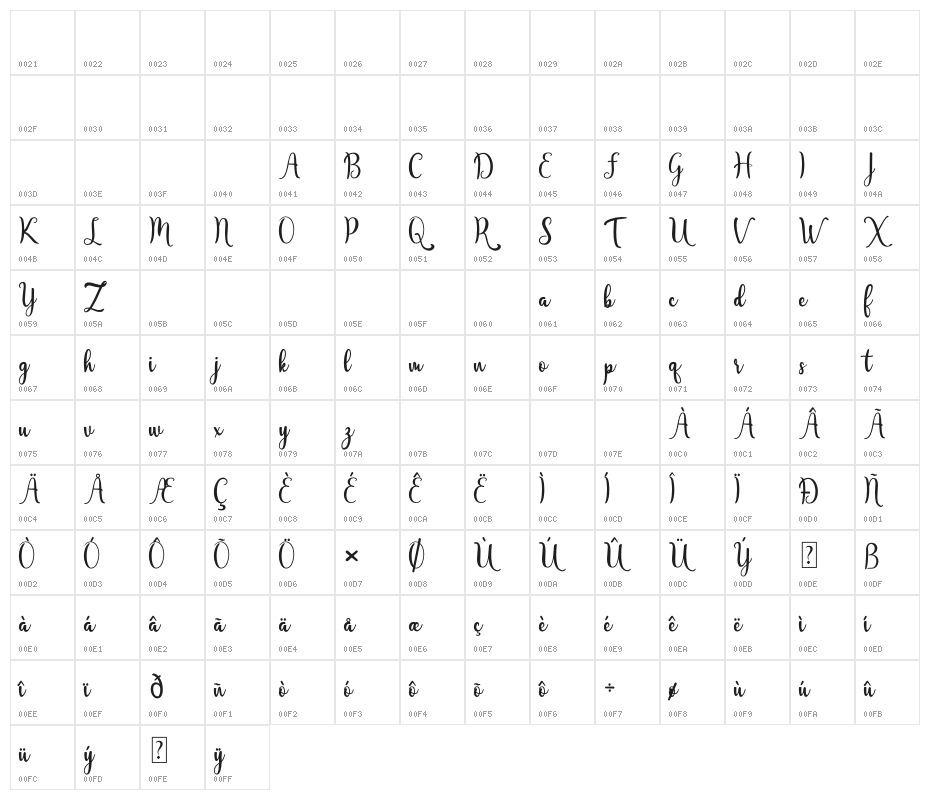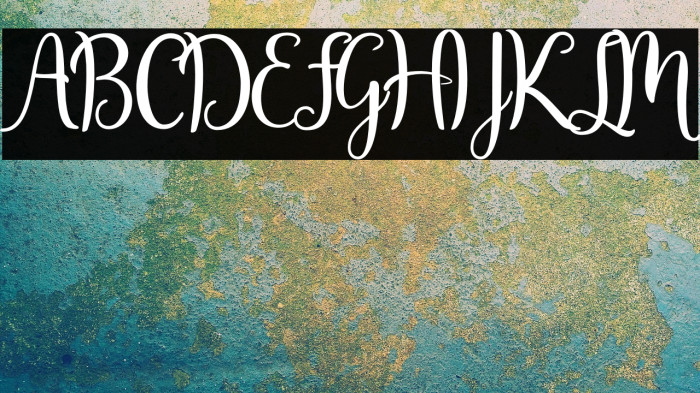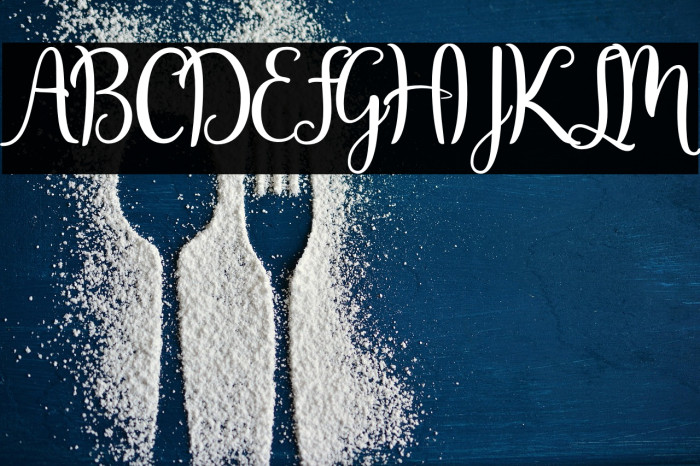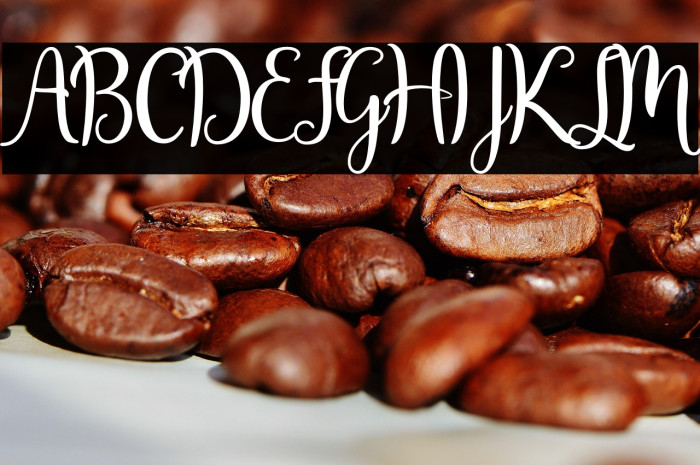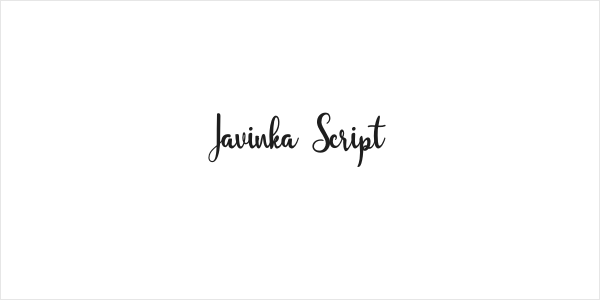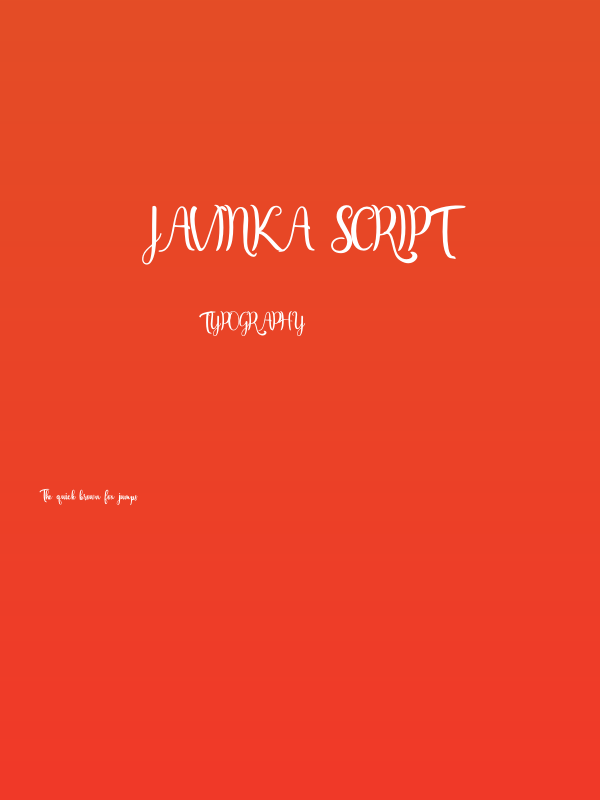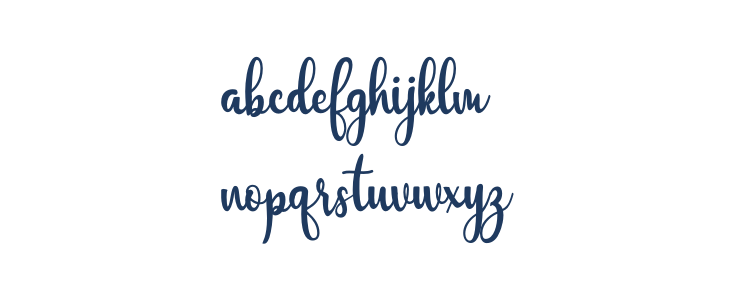
Javinka Script Font
Javinka Script Description
This font features an elegant and flowing script style, characterized by its smooth, cursive lines and graceful curves. The uppercase letters are tall and slender, with distinctive loops and swirls that add a touch of sophistication. The lowercase letters maintain a consistent flow, with some letters extending below the baseline, enhancing the font's fluidity. The overall appearance is both artistic and refined, making it suitable for projects that require a personal and stylish touch.
| Overall Style | Elegant |
| Use Case | Logos, Invitations, Decorative text |
| Proposed Projects | Ideal for wedding invitations, greeting cards, branding, and logo design where a personal and stylish touch is desired. |